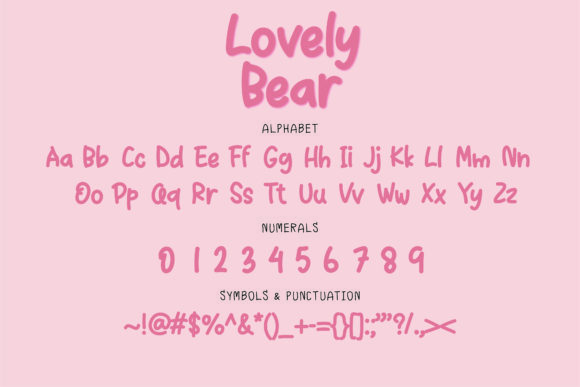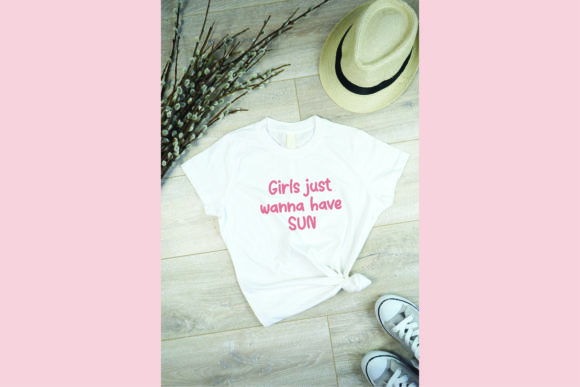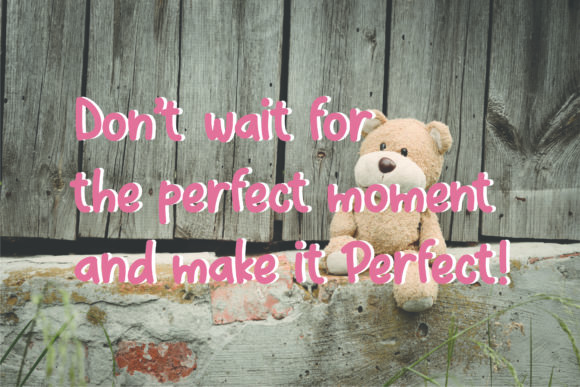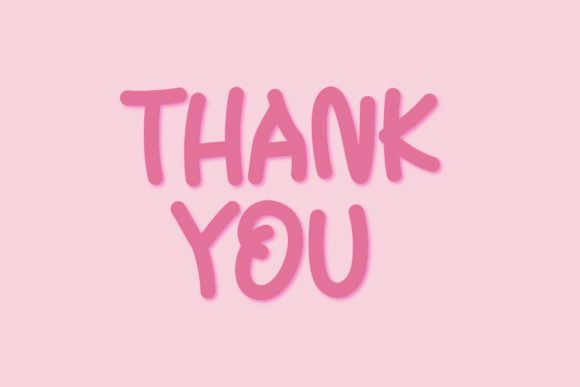
Introduction to Lovely Bear Font
Have you ever stared at a blank canvas, feeling the pressure of creating something truly unique and captivating? As designers, we’ve all been there. But what if you had the perfect tool to bring your ideas to life? Enter the Lovely Bear Font, a charming and playful handwritten font that’s about to become your new best friend.
With its transparent background and high-quality design, this font is a game-changer for any creative project. Whether you’re working on a free download, a promotional poster, or a social media graphic, the Lovely Bear Font is the perfect design resource to add a touch of personality and whimsy to your work.
As a valuable asset for designers, the Lovely Bear Font offers endless possibilities for creative expression. Its friendly and approachable style makes it easy to match with a wide range of projects, from children’s books to fashion brands. So why settle for a generic font when you can add a dash of loveliness to your design with the Lovely Bear Font?
Key Features of Lovely Bear Font
- High-quality design resource ideal for creative projects, offering a unique and playful touch.
- Comes with a transparent background, allowing for easy integration into various design elements.
- Features a modern and cute design style, perfect for illustrations, logos, and other creative projects.
- Designed to be highly legible, making it suitable for use in various contexts, from children’s educational materials to advertising campaigns.
Honest Review: Lovely Bear Font
I recently had the chance to work with the Lovely Bear Font, and I must say it’s been a delightful experience. The font is perfect for a creative project where you need a cute and playful touch.
- High-quality design: The Lovely Bear Font is well-designed and looks great on both light and dark backgrounds.
- Limited character set: The font only has a limited character set, which may not be ideal for designers who need a wide range of characters.
- Not suitable for formal projects: The font is too playful and cute, which may not be suitable for formal projects or corporate designs.
Overall, I’m really impressed with the Lovely Bear Font. It’s a great addition to any designer’s toolkit, and I would definitely recommend it for creative projects. However, it’s not perfect, and designers should be aware of its limitations.
The Lovely Bear Font is perfect for creative projects, such as logos, branding, and marketing materials. It’s also great for social media graphics, presentations, and reports. With its high-quality design and free download, it’s an excellent design resource for any project.